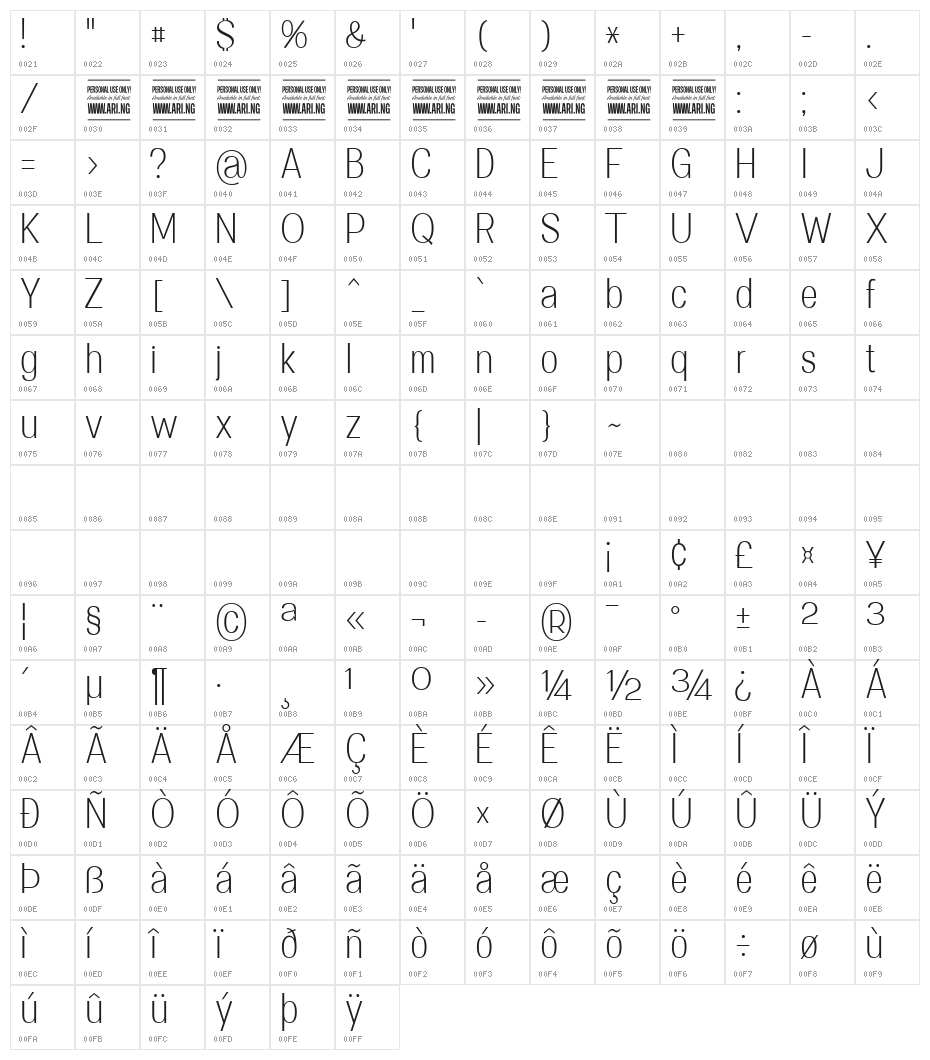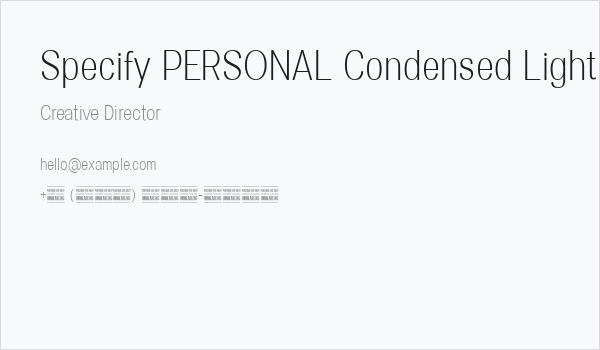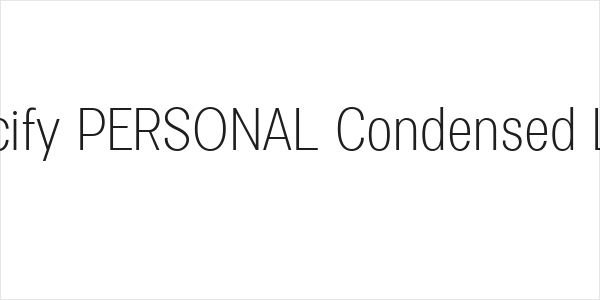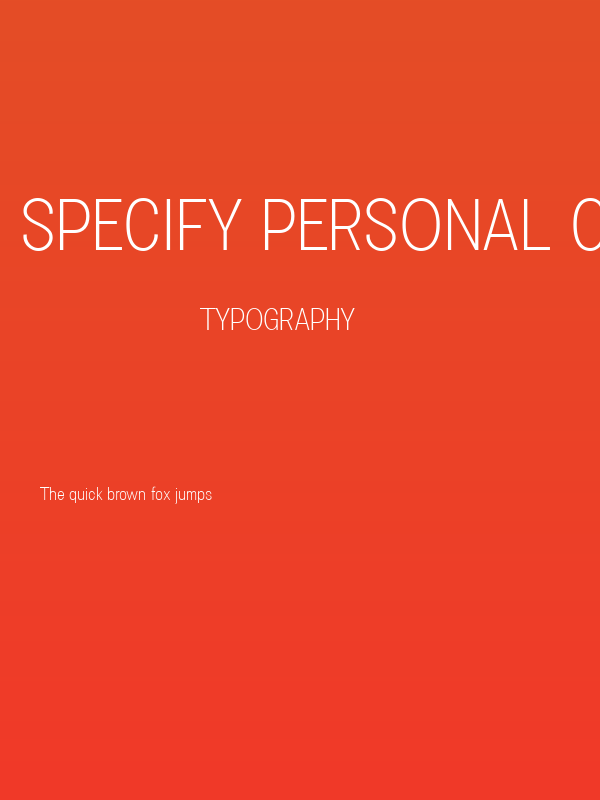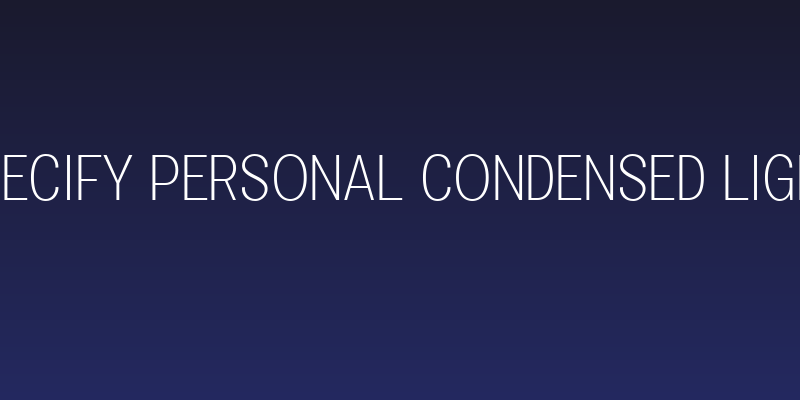
Specify PERSONAL Condensed Light Font
| Progetti proposti | Ideal for branding, editorial design, web design, and advertising where space efficiency and modern aesthetics are key. |